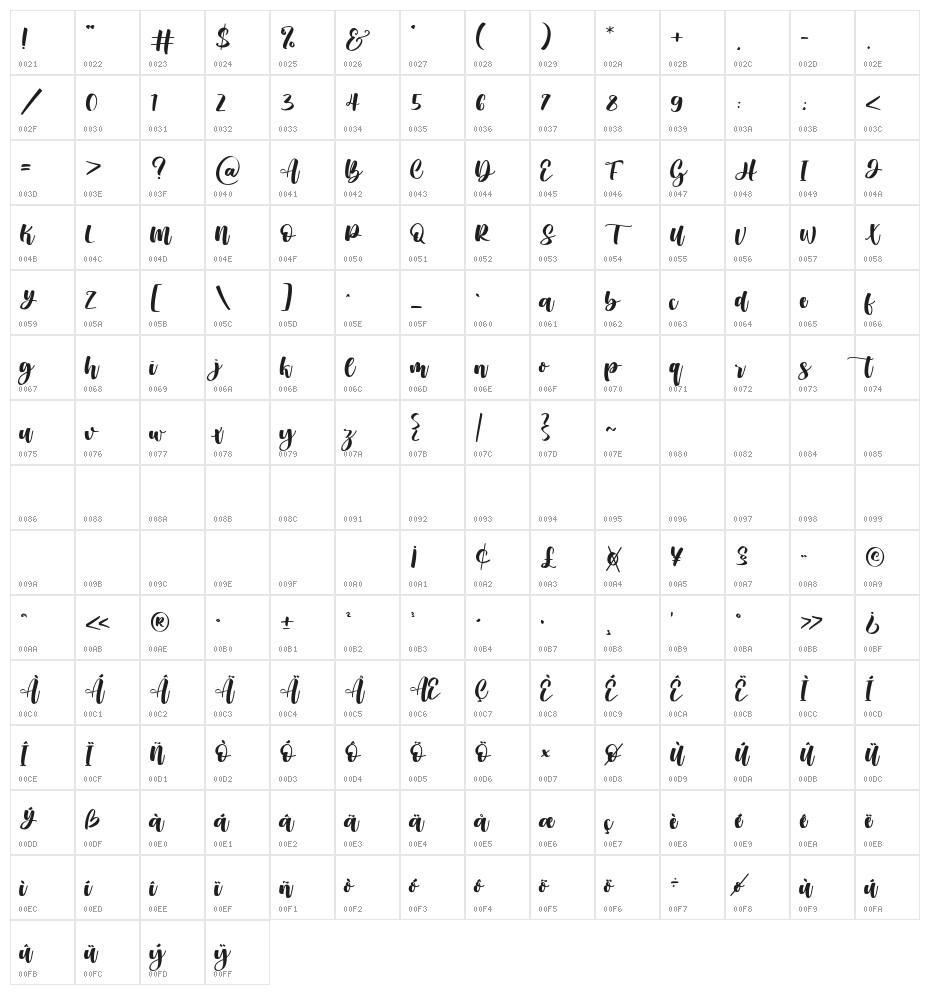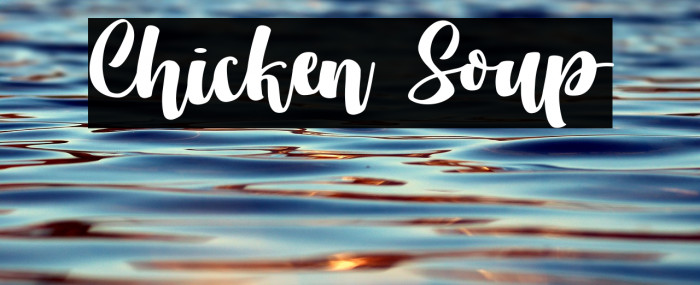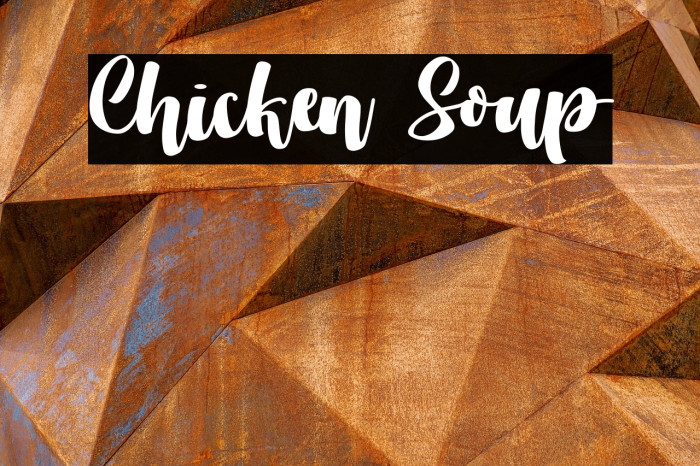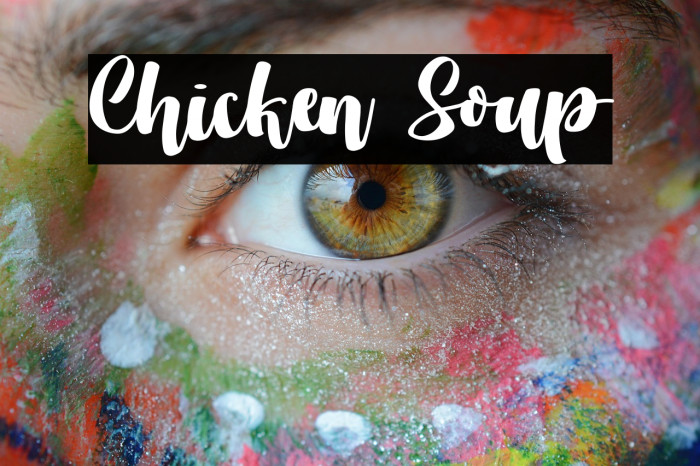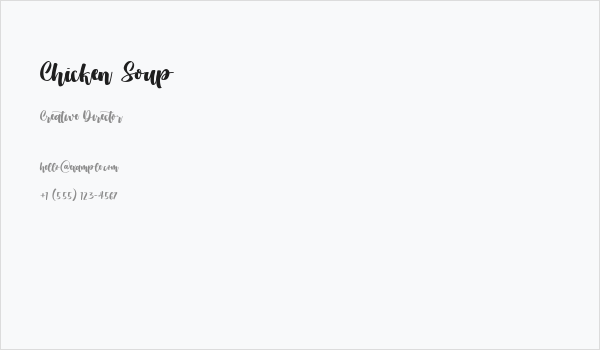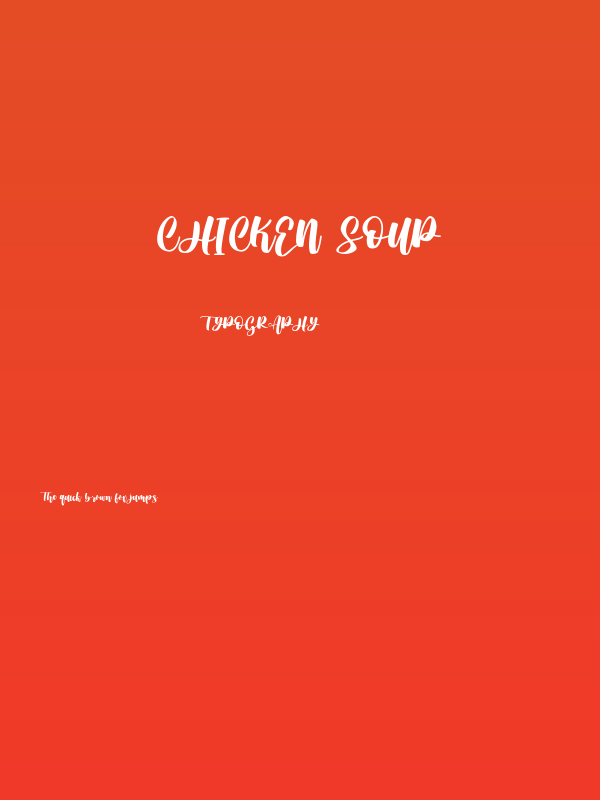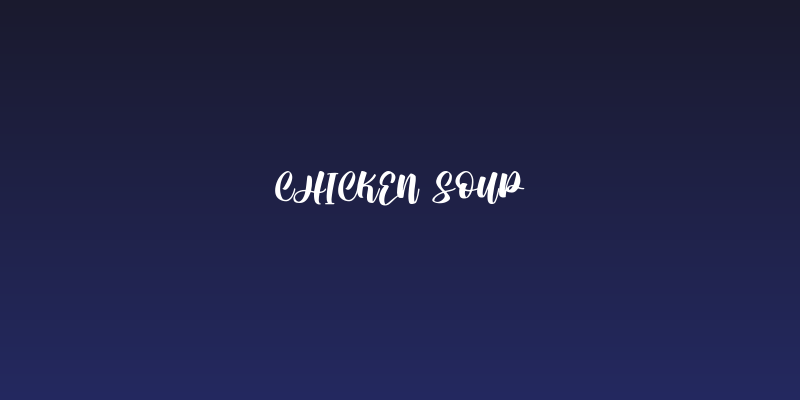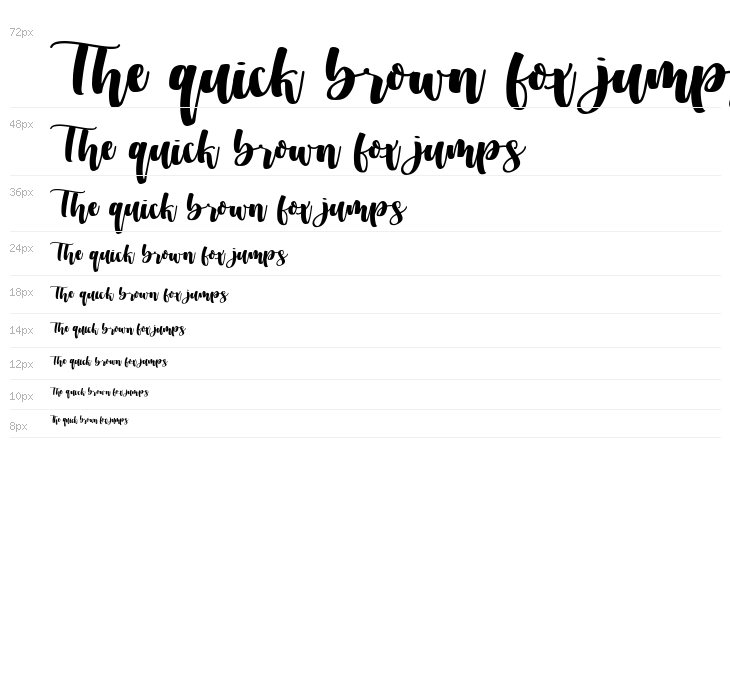
Chicken Soup Font
Chicken Soup Description
This font features a bold and expressive script style with a modern flair. The characters are designed with fluid, sweeping strokes that give a sense of movement and elegance. The uppercase letters are particularly striking, with dramatic flourishes and loops that add a decorative touch. The lowercase letters maintain a consistent style, providing a harmonious balance with the uppercase. Numbers and special characters are crafted with the same attention to detail, ensuring versatility across different uses. The overall appearance is both playful and sophisticated, making it suitable for a variety of creative projects.
| Proposed Projects | Ideal for wedding invitations, branding, greeting cards, and social media graphics. |